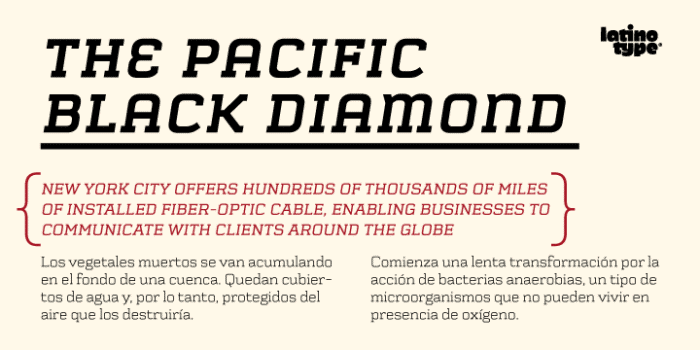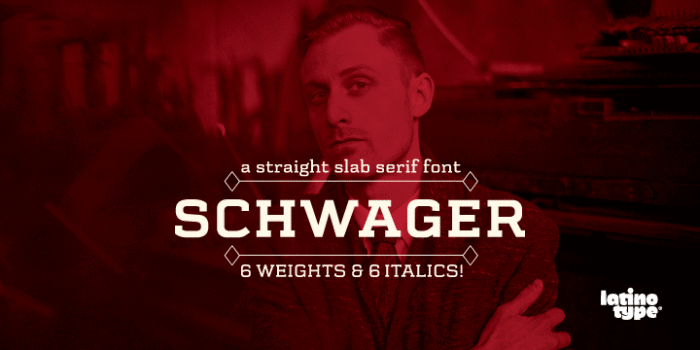
Schwager is a steampunk slab serif typeface with an industrial accent in a contemporary tone.
Its strong structure and male, makes it ideal for titles, headlines and brands of male lifestyle, technology and trend.
This typeface contains alternate glyphs that help to emphasize text or headlines.
Schwager is a steampunk slab serif typeface with an industrial accent in a contemporary tone.
Its strong structure and male, makes it ideal for titles, headlines and brands of male lifestyle, technology and trend.
This typeface contains alternate glyphs that help to emphasize text or headlines.
Schwager is a steampunk slab serif typeface with an industrial accent in a contemporary tone.
Its strong structure and male, makes it ideal for titles, headlines and brands of male lifestyle, technology and trend.
This typeface contains alternate glyphs that help to emphasize text or headlines.
Sanchez by Daniel Hernandez - Sánchez is the Latinotype’s first display type family. It is a serif typeface belonging to the classification slab serif, or Egyptian, that bears a strong resemblance to the iconic Rockwell, but with rounded edges— offering contrast and balance to the square structure. Sánchez comprises 12 variants, ranging from extra light to black, each of the same x-height. Regular and italic variants are available for free.
This typeface contains alternate glyphs that help to emphasize text or headlines.
Schwager is a steampunk slab serif typeface with an industrial accent in a contemporary tone.
Its strong structure and male, makes it ideal for titles, headlines and brands of male lifestyle, technology and trend.
This typeface contains alternate glyphs that help to emphasize text or headlines.